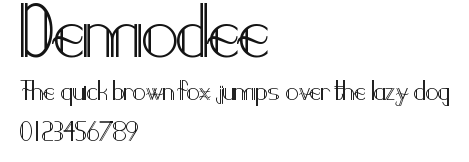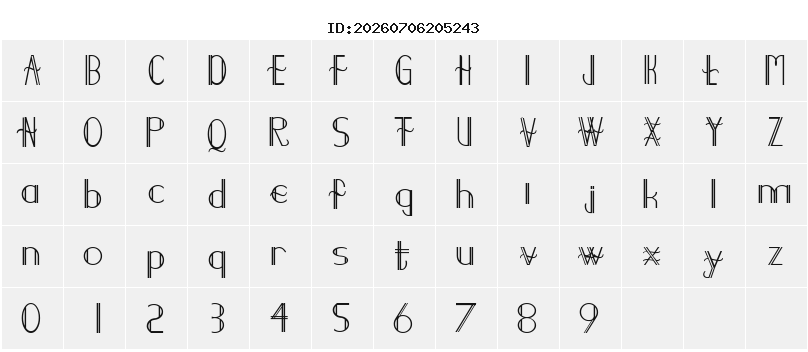
• Font Name: Demodee
• Font ID: Demodee:Version 1.00
• Full Font Name: Demodee
• Version: Version 1.00 January 23, 2013, initial release
• PostScript Name: Demodee
• Character Count: 387
• Copyright: Demodee© Matias Romero. 2013. Some Rights Reserved
About Demodee.ttf
Demodee.ttf is a modern, elegant sans-serif font designed for ultimate readability and visual harmony. Perfect for branding, headlines, web design, and print materials.